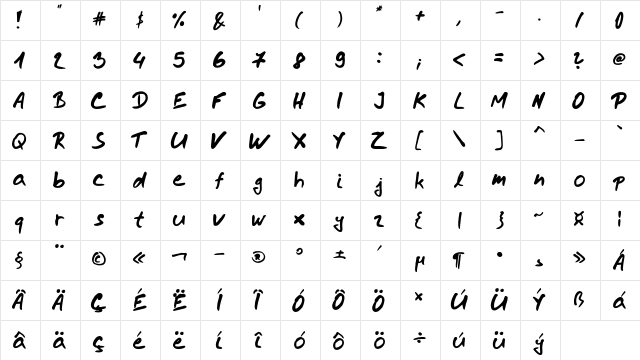
enyon handwrite Regular
| Foundry | enyon eugenius |
| Designer | enyonn eugenius |
Design Context for enyon handwrite Typeface
enyon handwrite brings a calligraphic fluidity to the page — its connecting strokes and expressive curves give it an unmistakably human quality.
Font Pairing: Combine enyon handwrite with a simple geometric sans for maximum contrast — the tension between flowing curves and clean structure is a classic typographic pairing.
Pro Tip: Pair enyon handwrite with a clean sans-serif for supporting text. The contrast between fluid script and geometric structure creates an elegant typographic hierarchy.